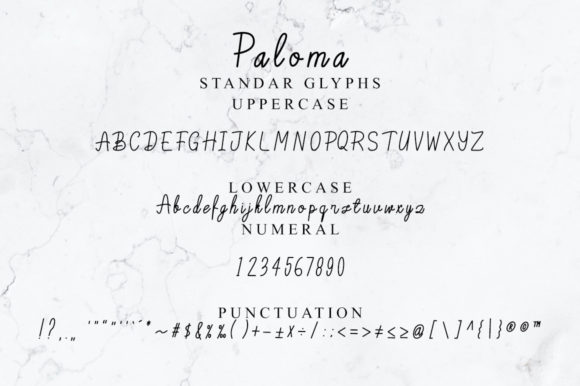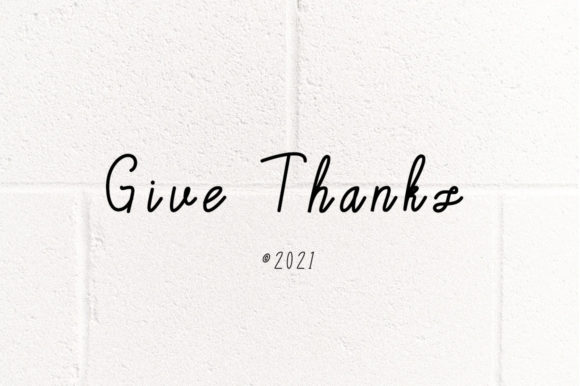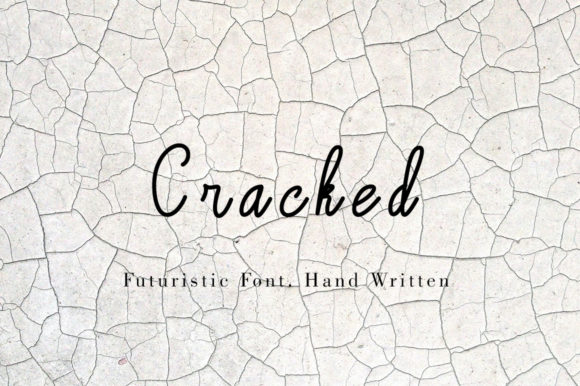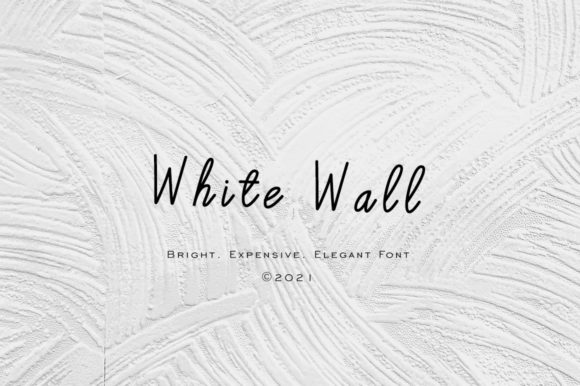
Paloma Font
About Paloma Font
Paloma is a stylish and incredibly elegant handwritten font. It looks stunning on wedding invitations, quotes, greeting cards, logos, business cards, and any other design that needs a handwritten touch.